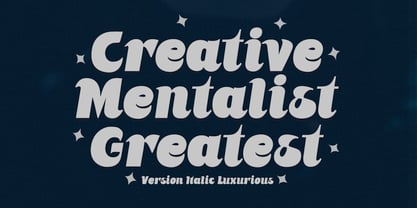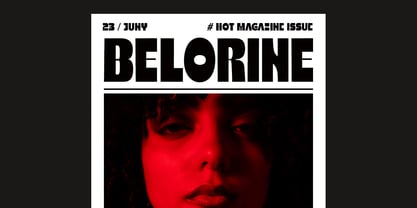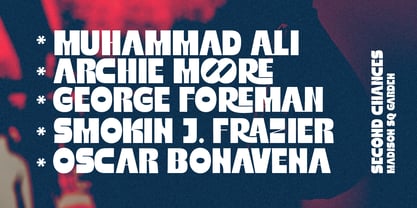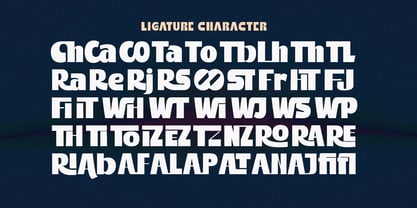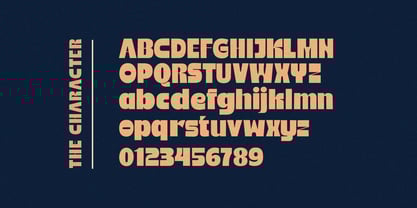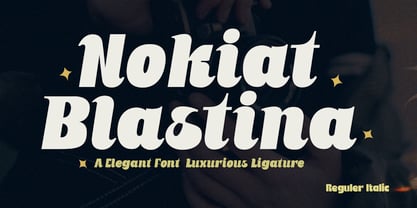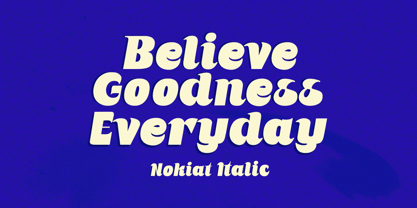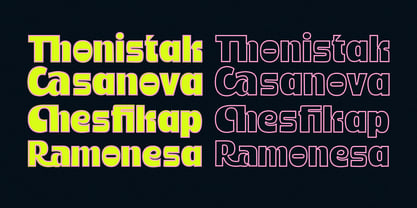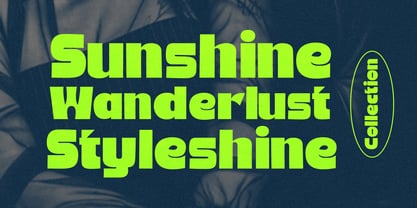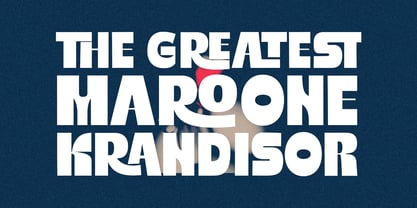
Nokiat Blastina
The Nokiat Blastina Font Family was designed by Bebby Lutfitharina and published by Fontastic Lab. Nokiat Blastina contains 2 styles and family package options. More about this family
Nokiat Blastina serif font with a series of alternate Bold styles that vary Regular and Italic. This font is a clean, versatile blend for use in big dreams in creating designs that offers a clear, upright typeface for a strong front at large sizes and easy to read in free-form text; Complementing its flexibility, this typeface offers accessible styles and alternatives through a series of open letter styles, further expanding its expressive potential for any design project.